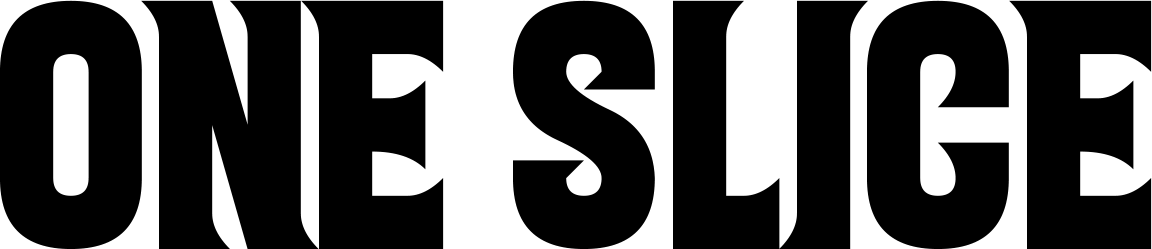
One Slice Font
One Slice font would be a brilliant idea to put on a vintage touch to any design of headers, logos, classical movie posters, book covers, or anything you want to create with its sharp edges and thick letters.
Although this gothic font has not appeared with lowercase letters, be sure it will go ahead with typography above the others with its strong retro style.